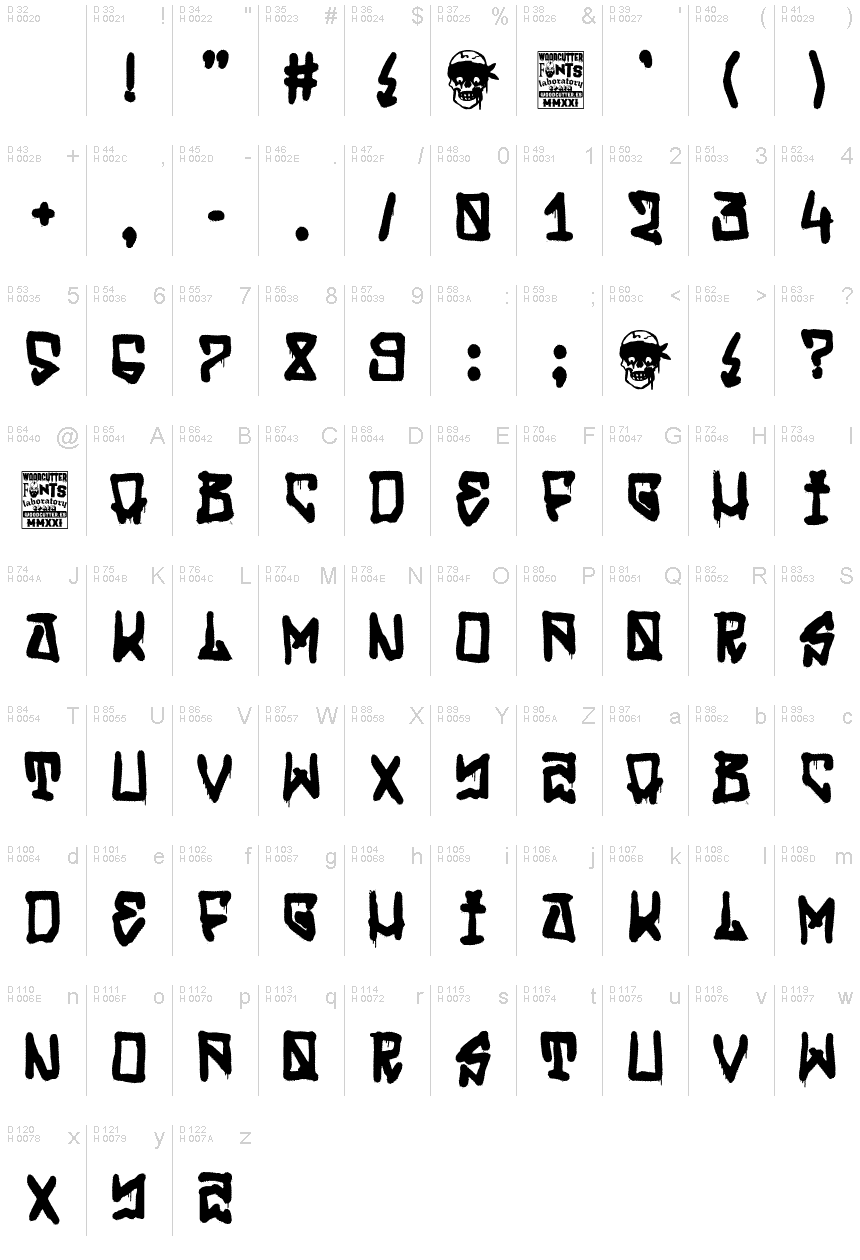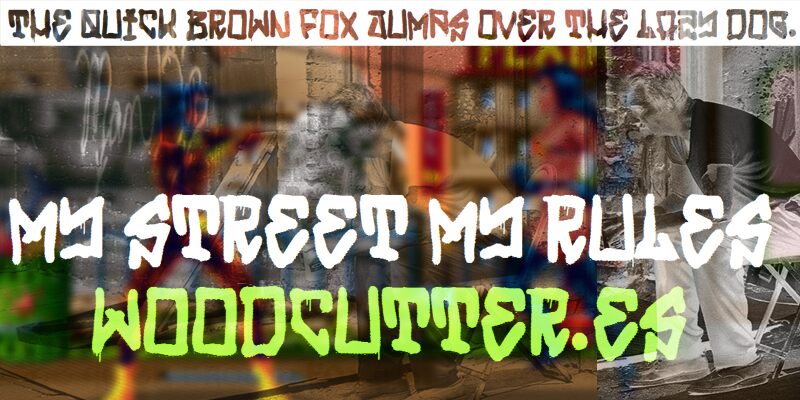
My Street My Rules
My Street My Rules, designed by Woodcutter, is a bold graffiti font that unleashes urban vibes with its rebellious strokes. This versatile typeface is perfect for projects that demand an edgy touch, such as streetwear branding, music album covers, skateboard graphics, and hip-hop event posters. Its bold weight makes a strong statement while maintaining readability. With this font's distinctive graffiti style, you can bring an urban edge to your designs and make your message stand out in the concrete jungle of creativity. Let My Street My Rules become the voice of your wild and untamed projects!